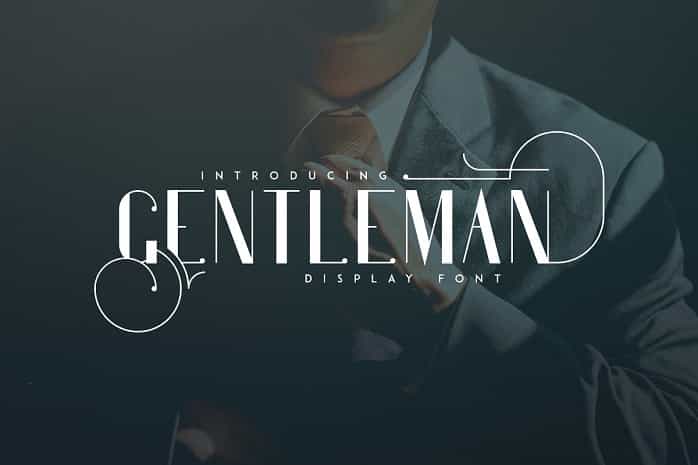
Introducing Gentleman Font. Gentleman is elegant display typeface with 3 alternative glyphs for each letter. It’s an all-purpose typeface that looks fantastic in both small and big sizes. Gentleman is ideal for branding projects, home style designs, product packaging, wedding invitations, magazine headings – or even as a simple text overlay for any background image.